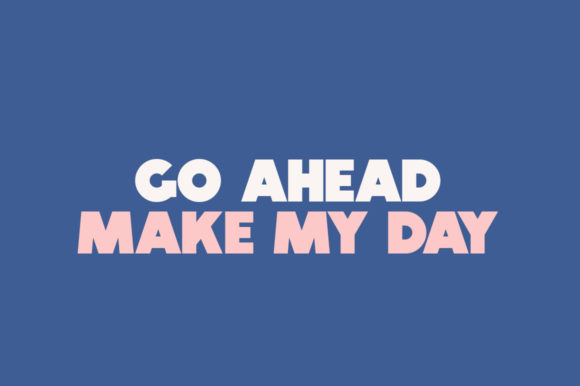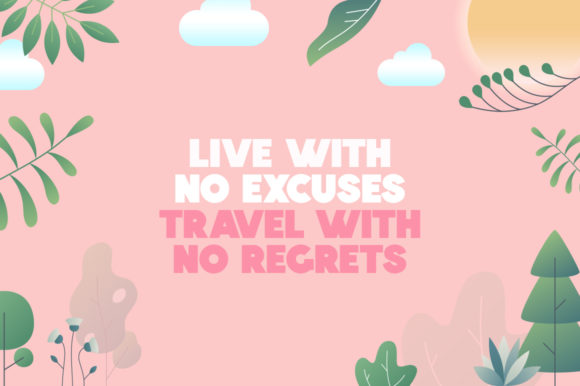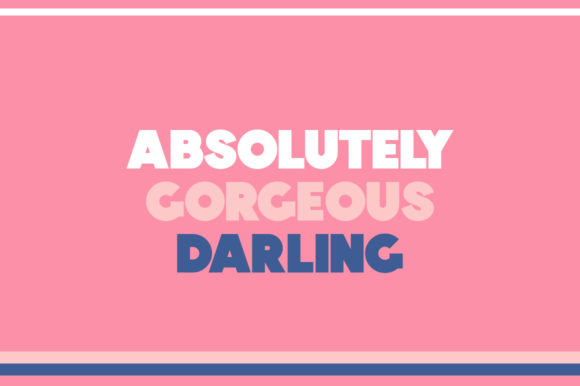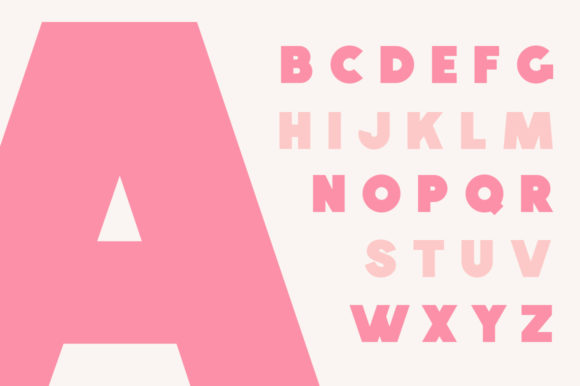
Discover the Timeless Elegance of Colombo Font: A Friendly and Cool Sans Serif Marvel
In the realm of typography, fonts play a pivotal role in conveying messages, evoking emotions, and creating lasting impressions. Among the myriad of fonts available, the Colombo font stands out as a beacon of elegance and friendliness, seamlessly blending the coolness of sans serif designs with the warmth of approachability. This article aims to explore the nuances of the Colombo font, its characteristics, and why it has become a favorite among designers and crafters alike.
The Essence of Colombo Font
Colombo is not just another font; it’s an experience. It’s a fun and cool sans serif font that manages to be friendly and elegant simultaneously—a combination that is hard to achieve in the world of typography. Its design is inspired by timeless class, making it versatile enough to be used in a variety of projects, from modern digital platforms to traditional print materials.
Characteristics of Colombo Font
So, what makes Colombo stand out from the crowd? Here are a few key characteristics:
- Sans Serif Elegance: The clean lines and sans serif design of Colombo give it a modern and sleek appearance, perfect for projects that require a touch of sophistication.
- Friendliness: Unlike some sans serif fonts that can come off as cold or distant, Colombo has a warm and inviting feel to it, making it ideal for brands and projects that want to connect with their audience on a personal level.
- Versatility: Its elegant and friendly nature makes Colombo a versatile font that can be used across various mediums, from digital interfaces to print materials.
- Timeless Appeal: The design of Colombo is inspired by classic typography, ensuring that it remains relevant and stylish for years to come.
Why Designers and Crafters Love Colombo Font
Designers and crafters often find themselves on the lookout for fonts that can add a unique touch to their projects. Here’s why Colombo has become a favorite:
- Enhances Readability: The clear and clean design of Colombo ensures that text remains readable, even at smaller sizes, making it perfect for body text and captions.
- Evokes Emotion: The friendly and elegant nature of Colombo allows designers to evoke a specific emotional response from their audience, making it a powerful tool for branding and marketing projects.
- Easy to Pair: Colombo’s neutral yet stylish design makes it easy to pair with other fonts, offering endless possibilities for creative combinations.
- Supports Various Languages: As a versatile font, Colombo supports multiple languages, making it a great choice for international projects.
Using Colombo Font in Your Projects
Whether you’re working on a branding project, a website design, or crafting materials, Colombo can elevate your work with its unique blend of elegance and friendliness. Here are a few ideas:
- Branding and Logos: Use Colombo as a primary font for logos and branding materials to create a modern yet approachable feel.
- Web Design: Its readability and clean design make Colombo an excellent choice for website content, enhancing user experience.
- Print Materials: From brochures to business cards, Colombo can add a touch of sophistication and warmth to any print material.
- Social Media Graphics: Stand out on social media with Colombo’s friendly and engaging aesthetic, perfect for infographics, posts, and more.
| Author | Salt and Pepper Fonts |
The Colombo font is a remarkable addition to the world of typography, offering a unique blend of coolness, elegance, and friendliness. Its timeless class and versatile nature make it an invaluable asset for designers and crafters looking to create impactful and memorable projects. Whether you’re aiming for a modern edge or a classic feel, Colombo is sure to inspire and elevate your work.
So, get inspired by the timeless class of Colombo font and discover how it can transform your designs into something truly special.